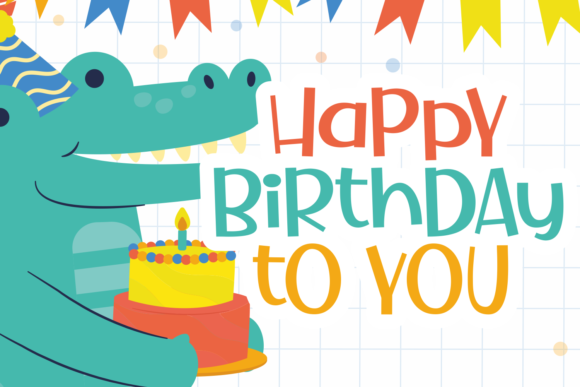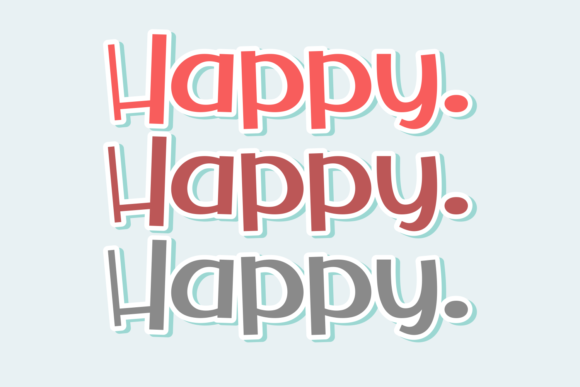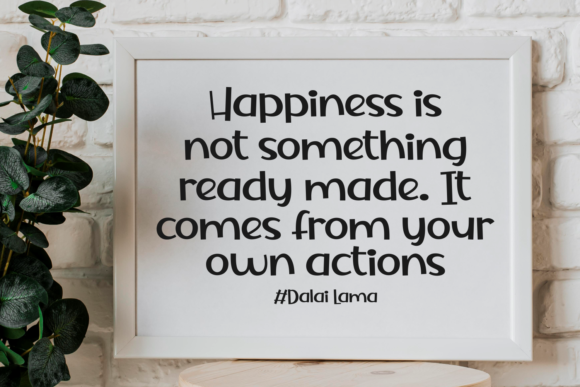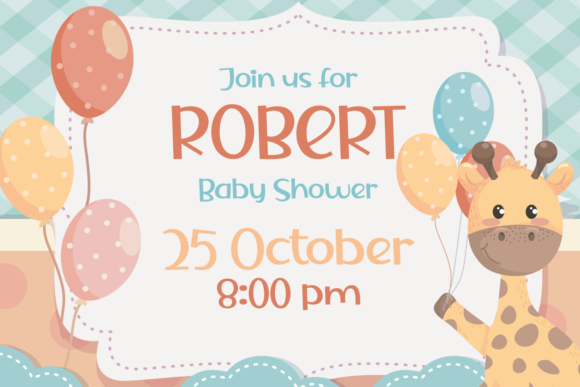
The Perfect Font for Your Next Big Project: Caslyn Font
Have you ever been brainstorming ideas for a new project, and suddenly, a burst of creativity strikes, and you envision the perfect font – bold, playful, and inviting? For designers, this moment is a game-changer. It’s the moment when all the pieces come together, and the design starts to take shape. This is exactly what Caslyn Font is designed to deliver – a friendly and approachable look that grabs attention and draws the viewer in.
Caslyn Font is perfect for big text, headlines, covers, posters, banners, and more. Its bold characters make it stand out from the crowd, while its friendly appearance ensures that your message is conveyed in a way that resonates with your audience. As a designer, you’re always on the lookout for fonts that make your work shine, and Caslyn Font is definitely a valuable addition to your toolkit.
- Unique Characteristics: Caslyn Font features a unique blend of modern and classic design elements, making it suitable for a wide range of applications.
Caslyn Font Review
Overall, I’d say Caslyn Font is a decent addition to any designer’s toolkit. It has its strengths and weaknesses, which I’ll outline below.
- Unique aesthetic: Caslyn Font has a distinctive look that’s perfect for creating eye-catching headlines or titles.
- Good legibility: The font is relatively easy to read, even at smaller sizes.
- Supports various languages: Caslyn Font includes a wide range of language support, making it a great choice for multilingual designs.
- Limited font weights: While Caslyn Font includes some decent weights, the selection is somewhat limited compared to other fonts.
- No italic or oblique styles: The font only comes in a standard upright style, which might limit its use in certain design scenarios.
- Not suitable for body text: Due to its unique aesthetic, Caslyn Font isn’t ideal for large blocks of text. It’s better suited for headings and titles.
Caslyn Font is a solid choice for designers who want to add some flair to their designs. While it has its limitations, it’s a great addition to any font library. Just be mindful of its use cases and limitations to get the most out of it.
Caslyn Font is ideal for:
– Creative headings and titles
– Fashion and beauty branding
– Luxury and high-end marketing materials
– Modern and minimalist designs
Tips for Getting the Most Out of Caslyn Font
To maximize the effectiveness of Caslyn Font, use it in combination with bold colors and clean backgrounds. Experiment with different font sizes and styles to create visual interest.